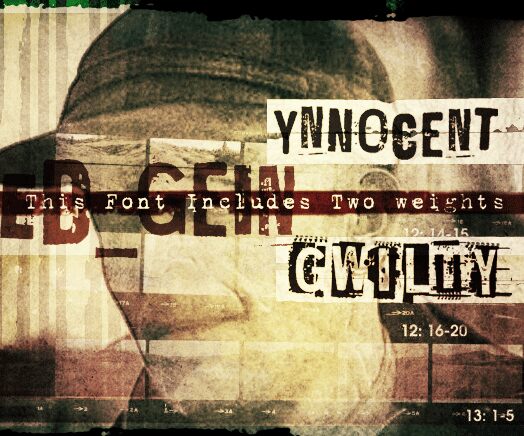
Ed Gein Ynnocent from Bumbayo Font Fabrik is a free eroded display font with blunt, crowded capitals and an aggressively uneven silhouette. Deep chips, scratches, and broken edges cut through the dense strokes, with damage varying sharply from letter to letter. The effect is raw and confrontational.
Horror, underground music, and true-crime themes suit its battered, ink-stamped appearance. It can supply poster titles, album artwork, and Halloween event graphics with lettering that already feels physically distressed. For streetwear labels or rebellious product packaging, the damaged capitals can become the central mark of a deliberately rough brand identity.
Ed_Gein is available for free download and use. It includes two weights: Ynnocent and Gwilty.
It contains uppercase and lowercase letters and numerals 0–9.